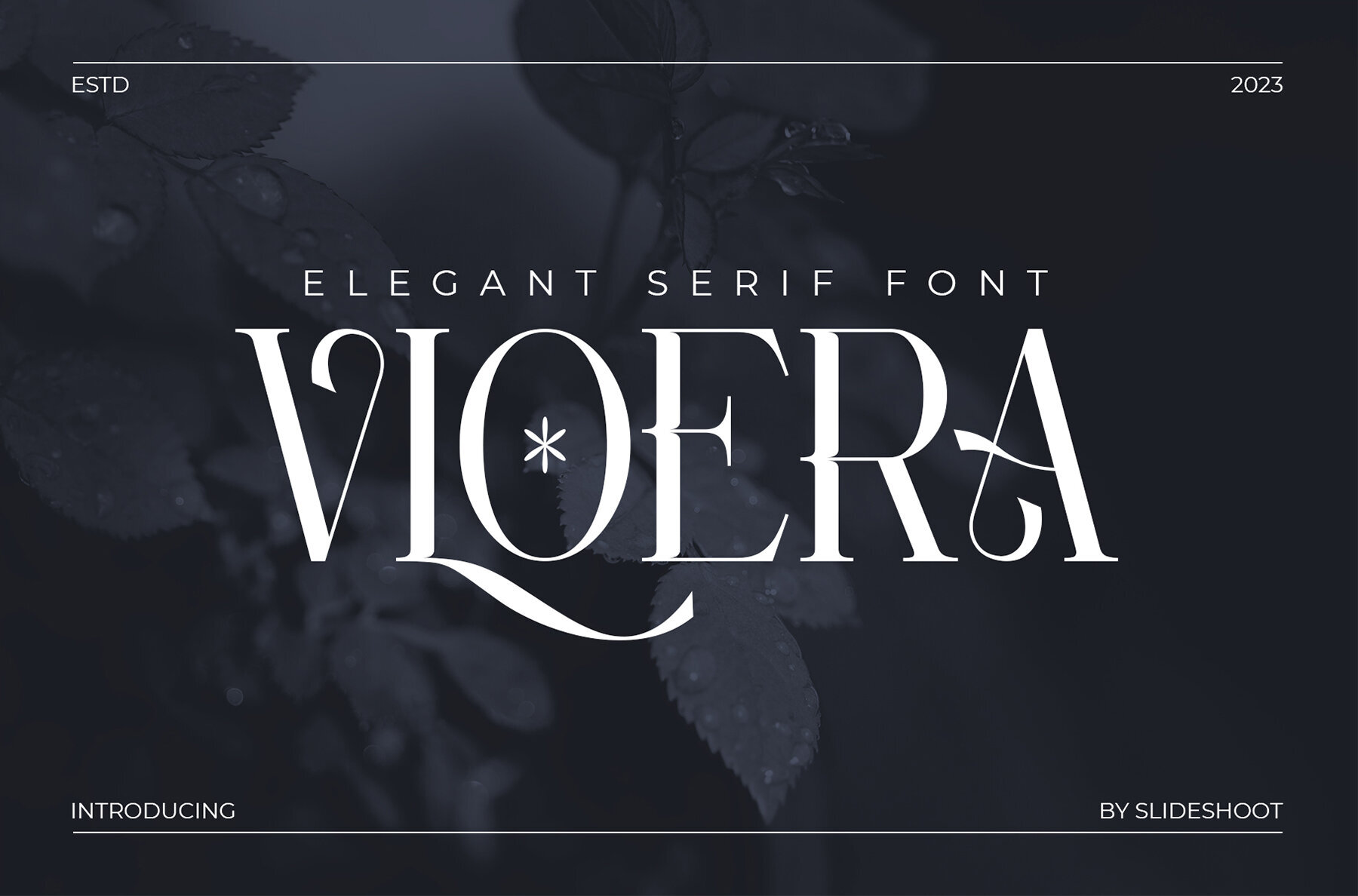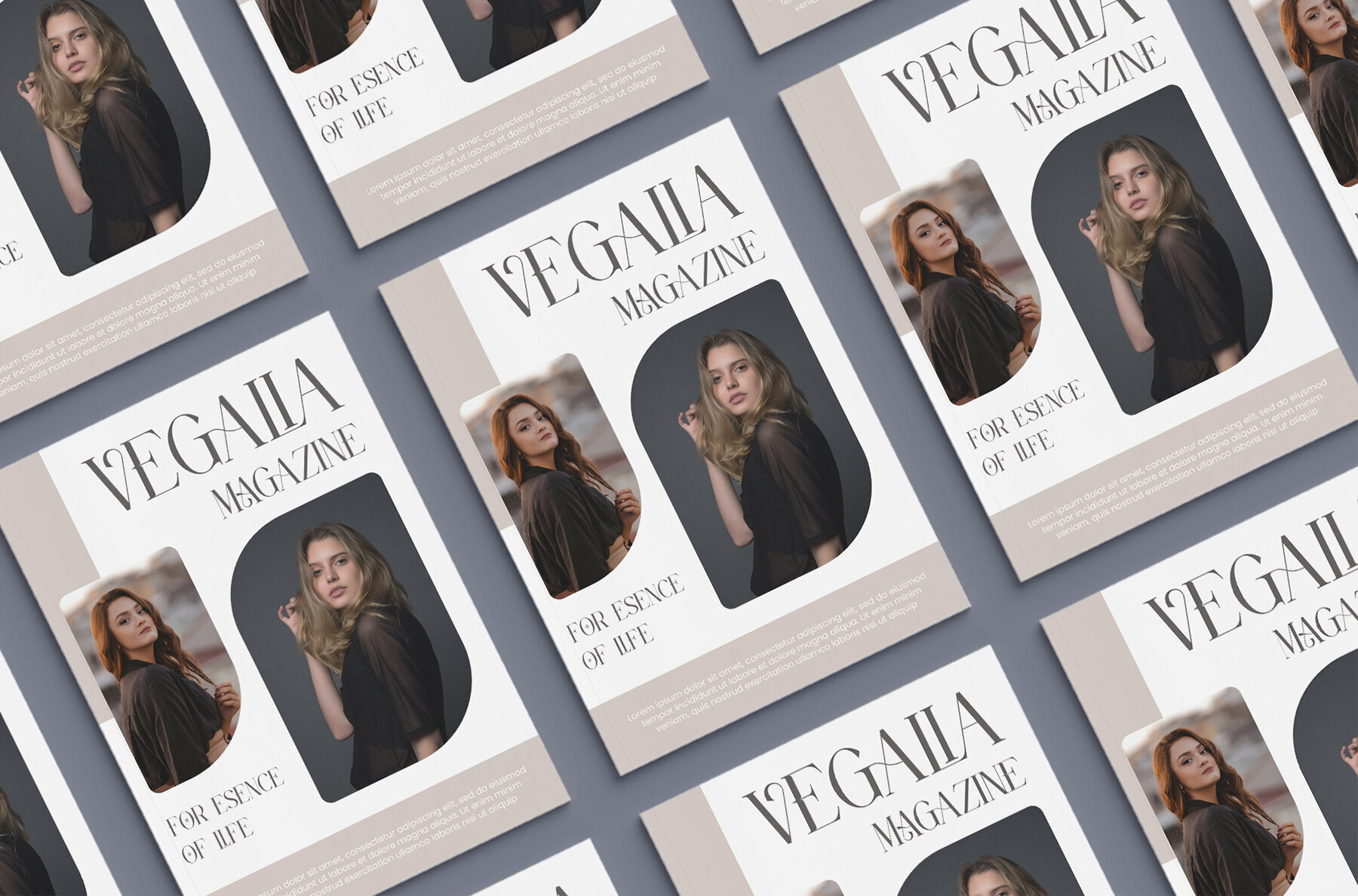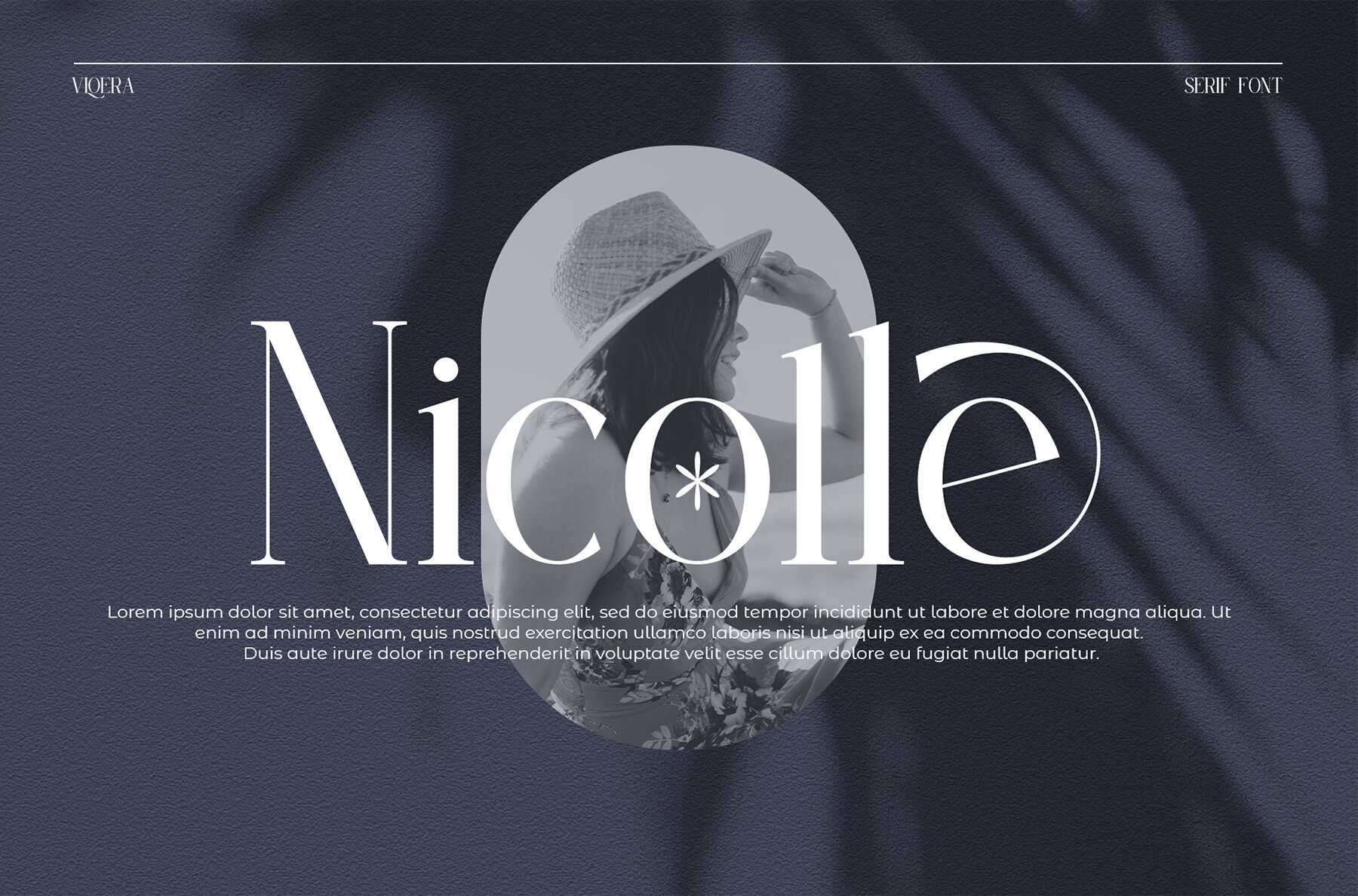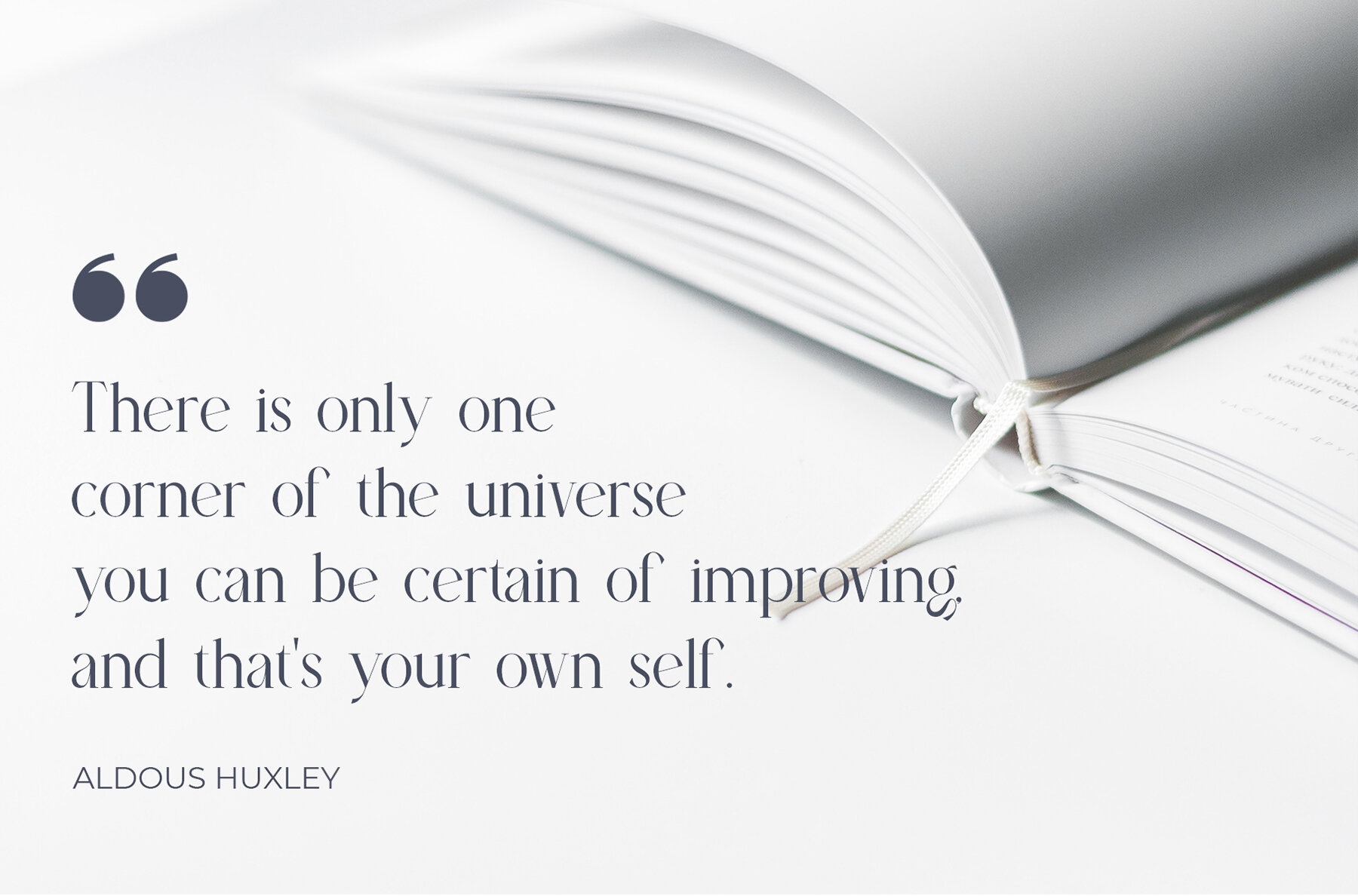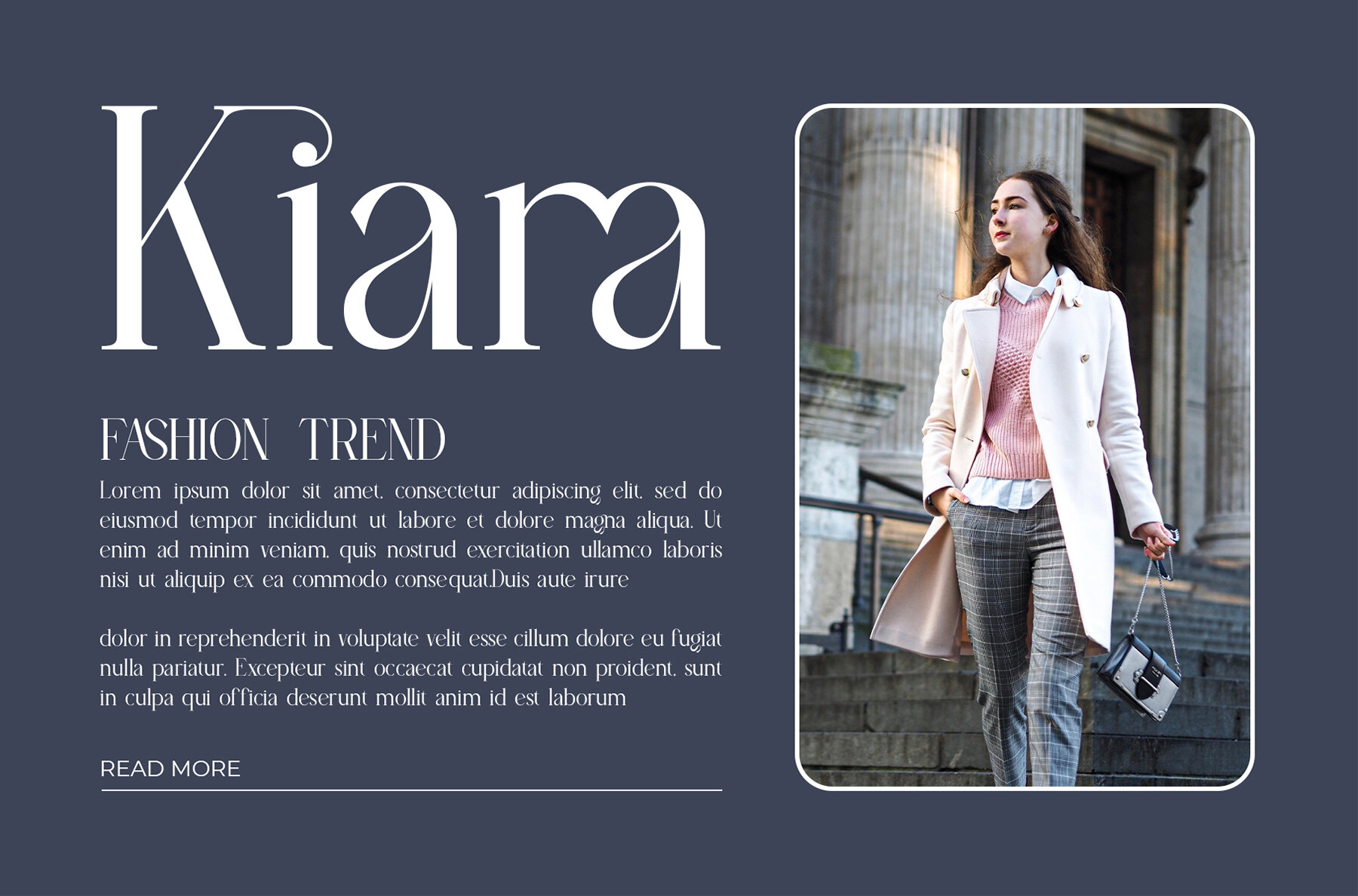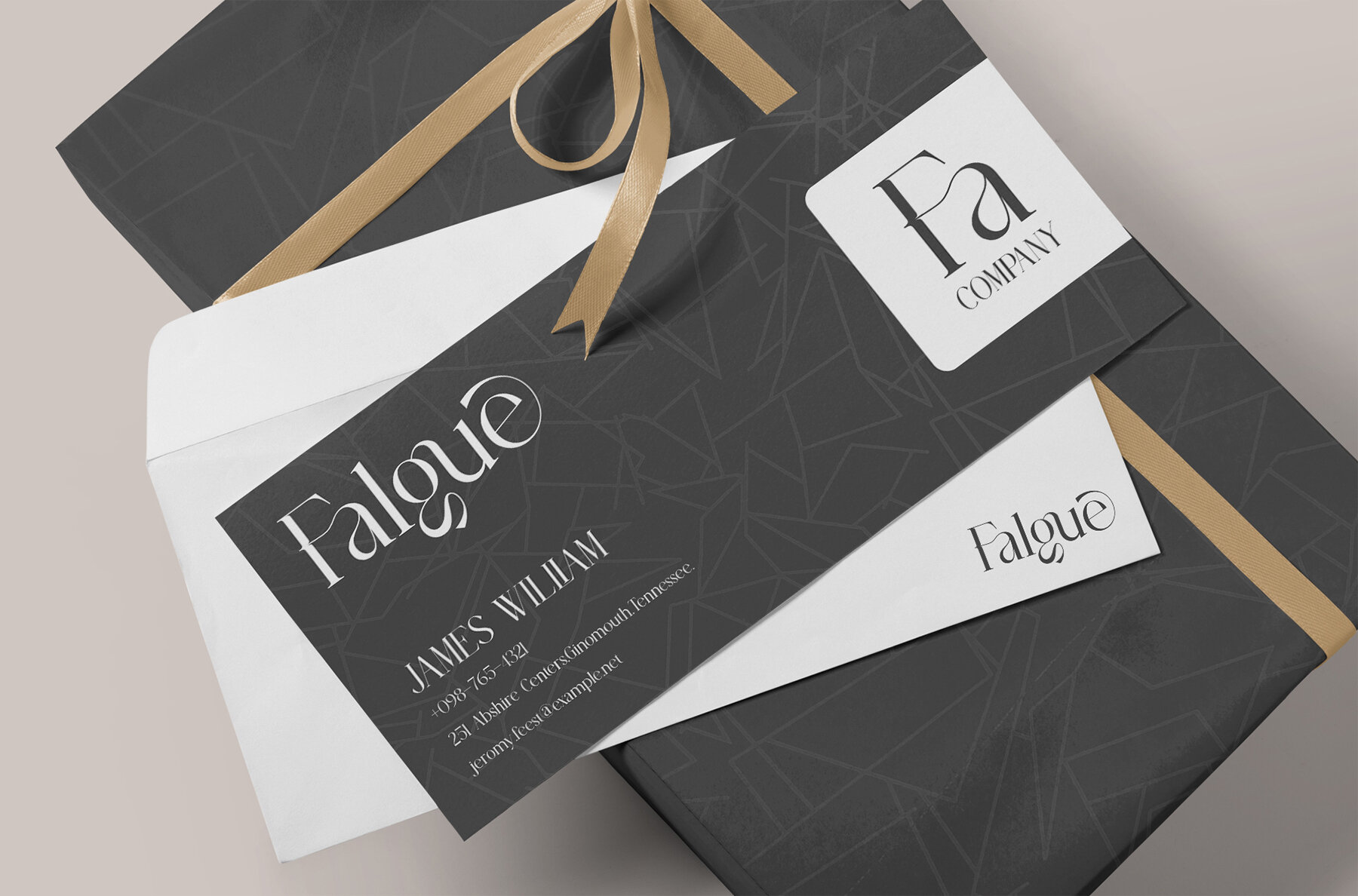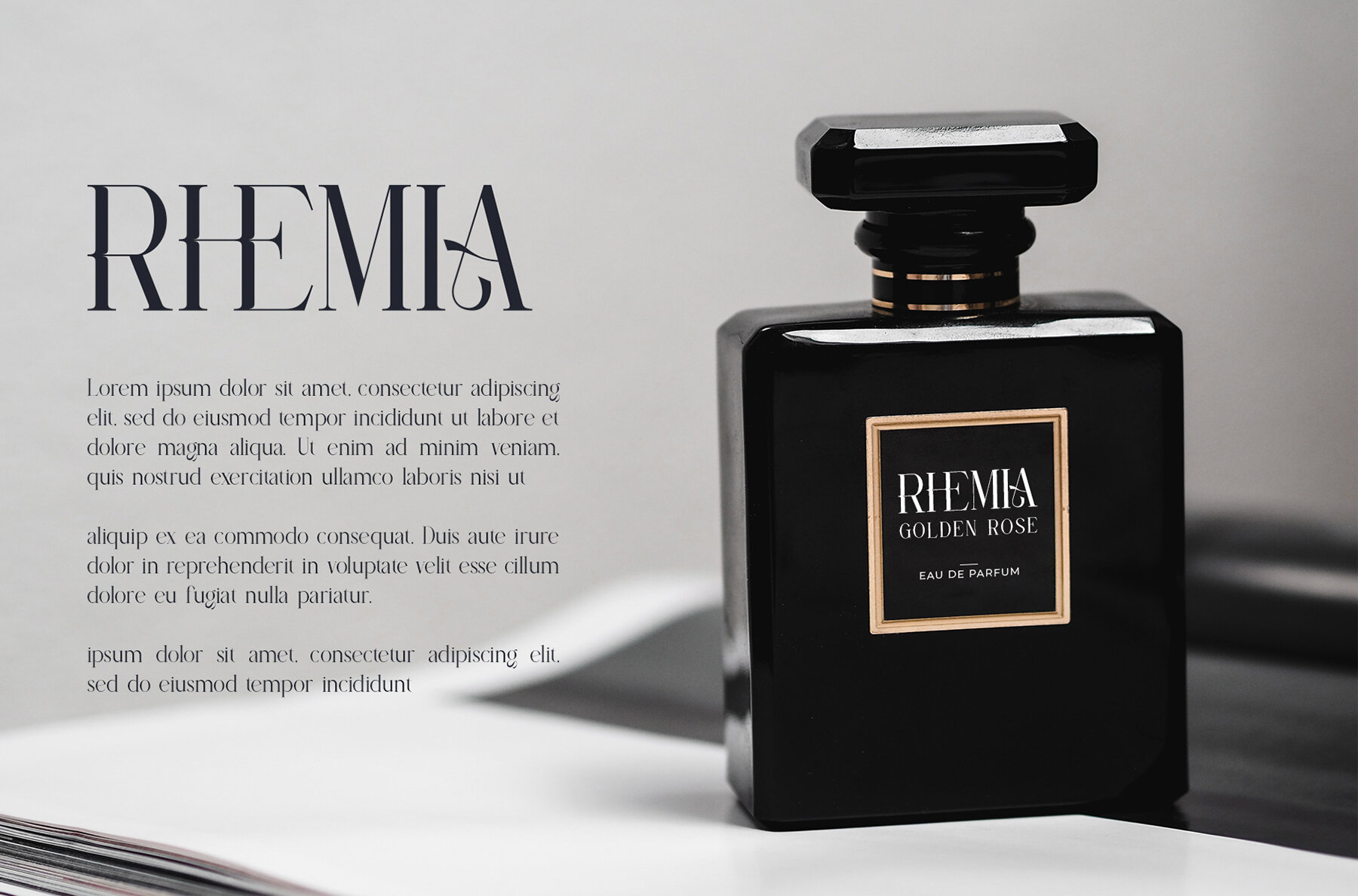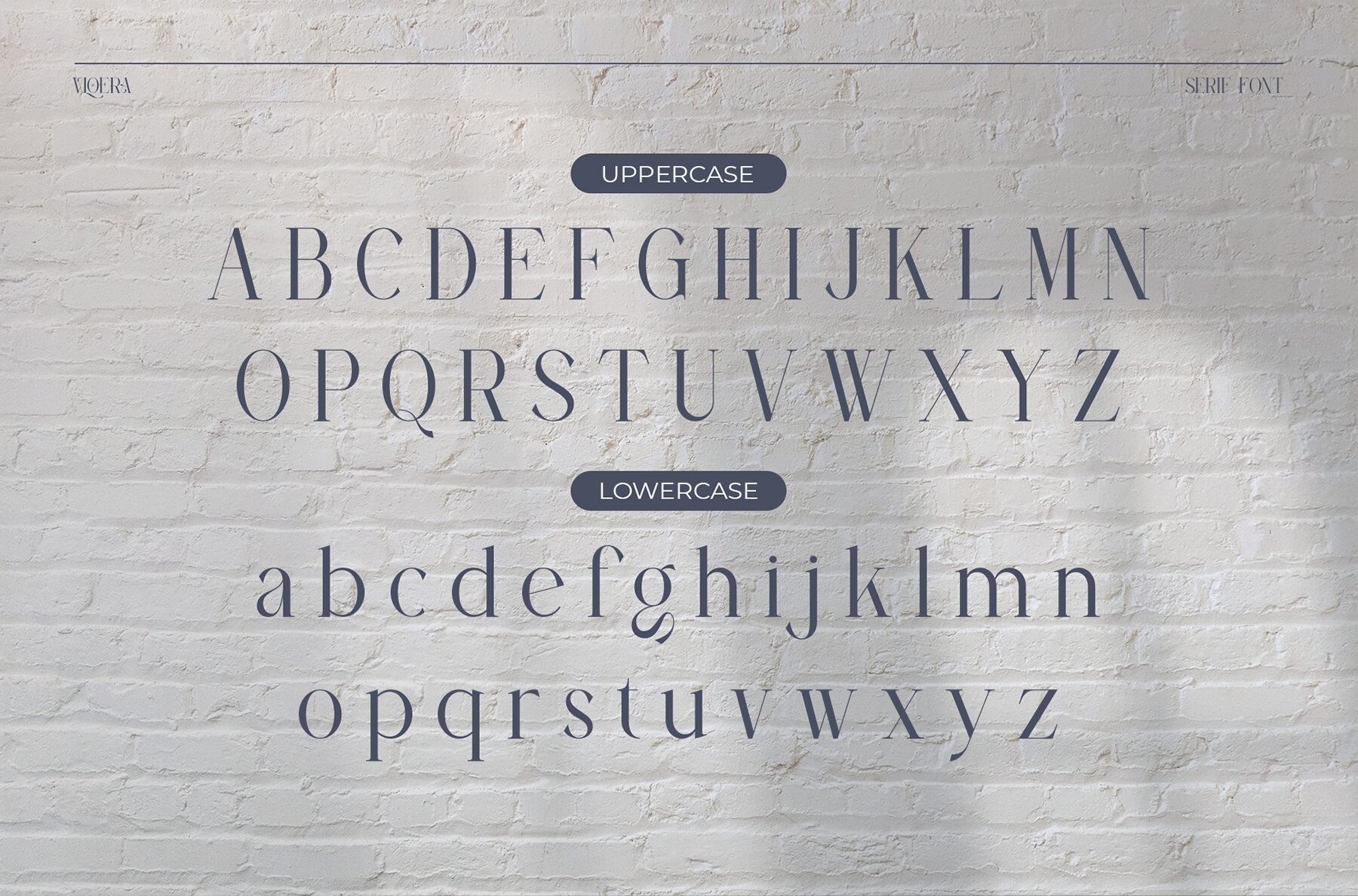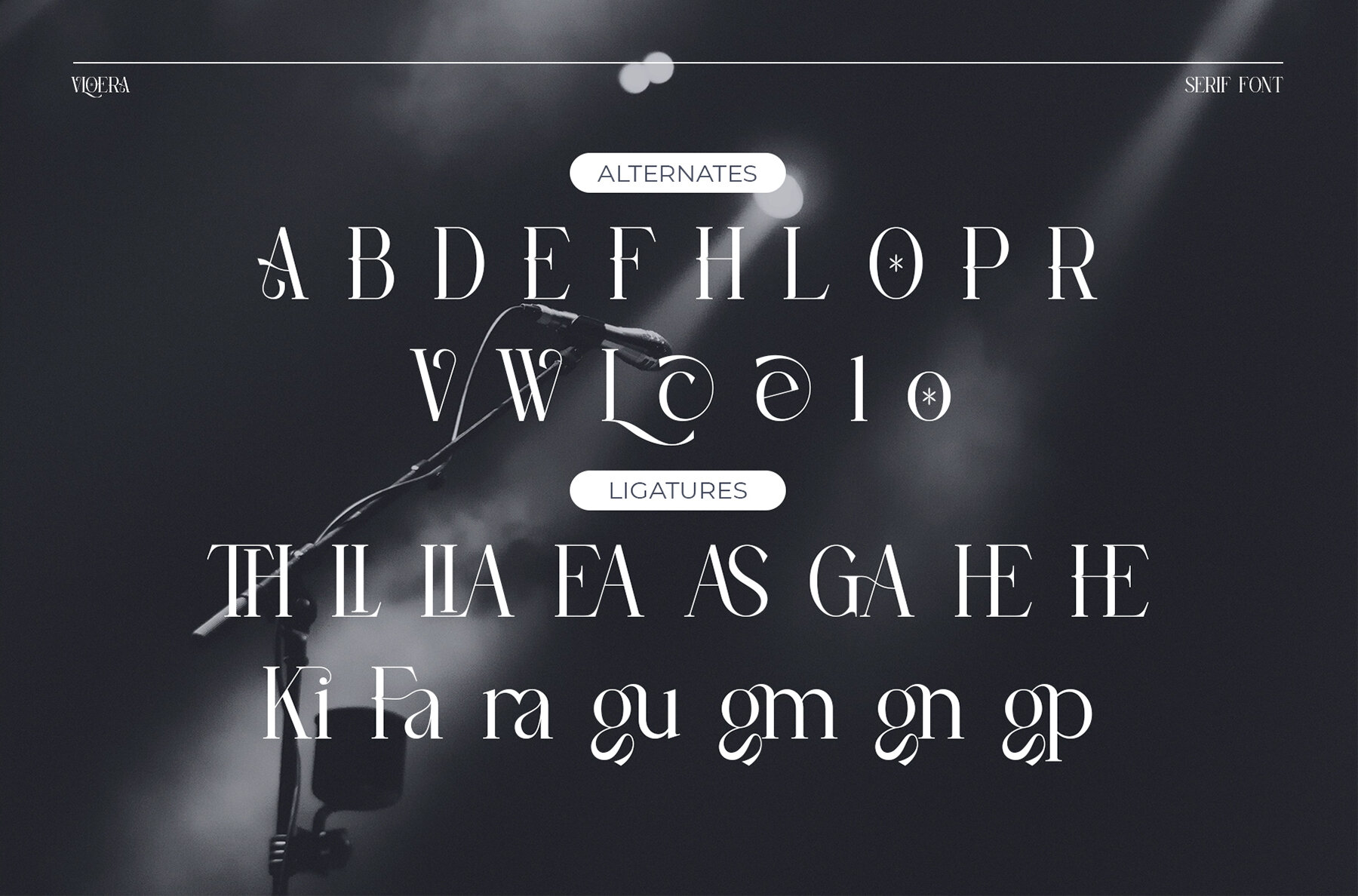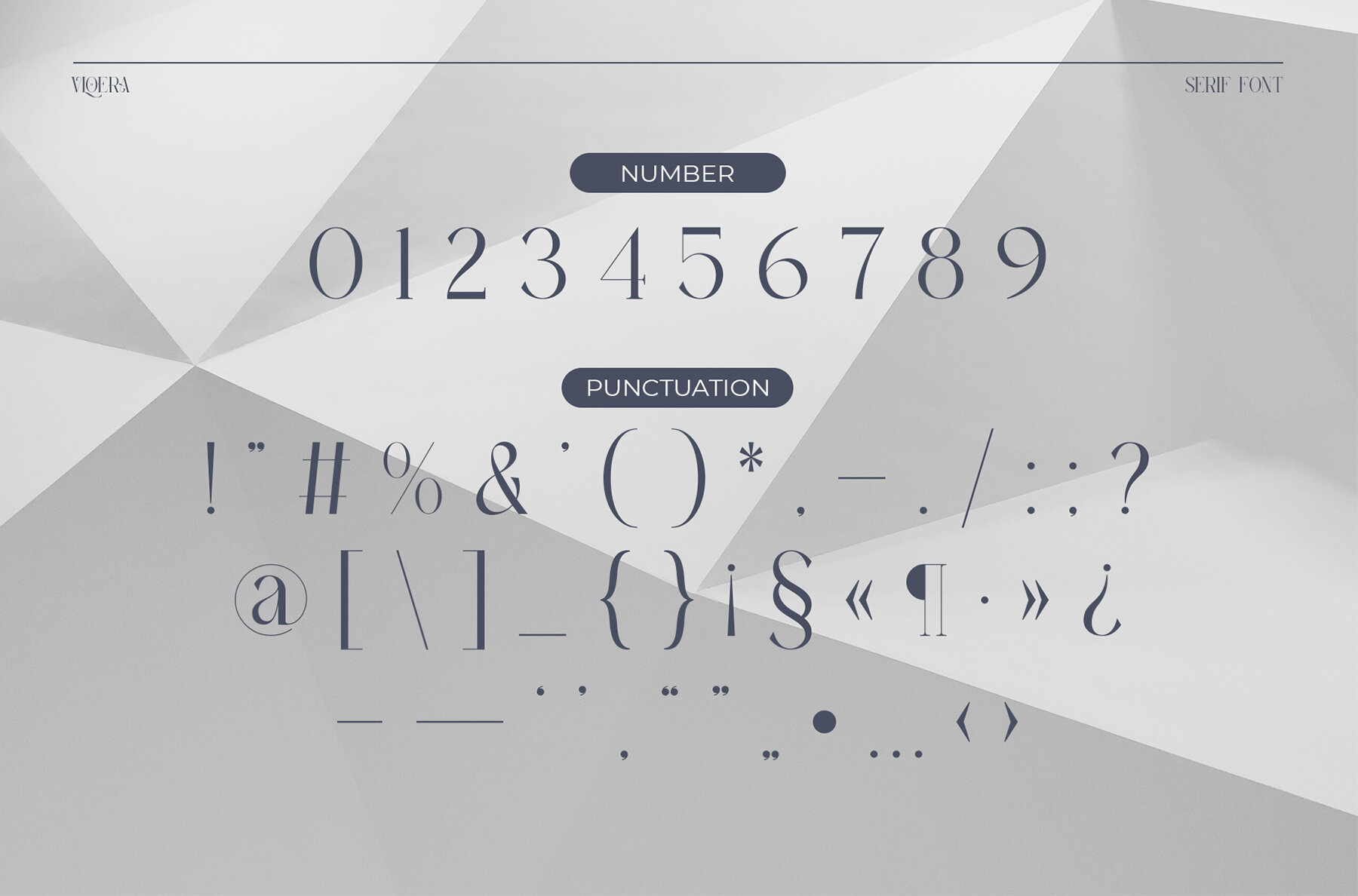
Vloera Font
Vloera Regular
Vloera Serif is a balanced and smooth font, offering an elegant and stylish design that fits a wide range of applications. With its beautiful character, Vloera Serif is ideal for invitation cards, company logos, movie titles, business cards, book covers, and brand names. This subtle serif font exudes sophistication and elegance, making it a perfect addition to any creative project.Vloera Serif: Elegant and Sophisticated Typography